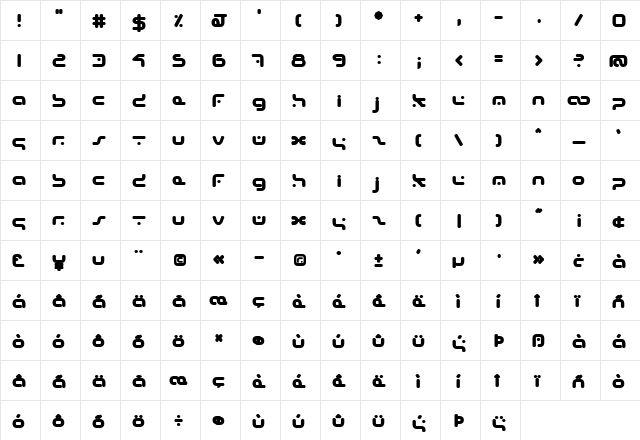
Hybrid Bold
Design Context for Hybrid Typeface
Hybrid is a composed and adaptable typeface that performs quietly and consistently across a wide range of design contexts. The heavy weight commands attention and anchors typographic hierarchies.